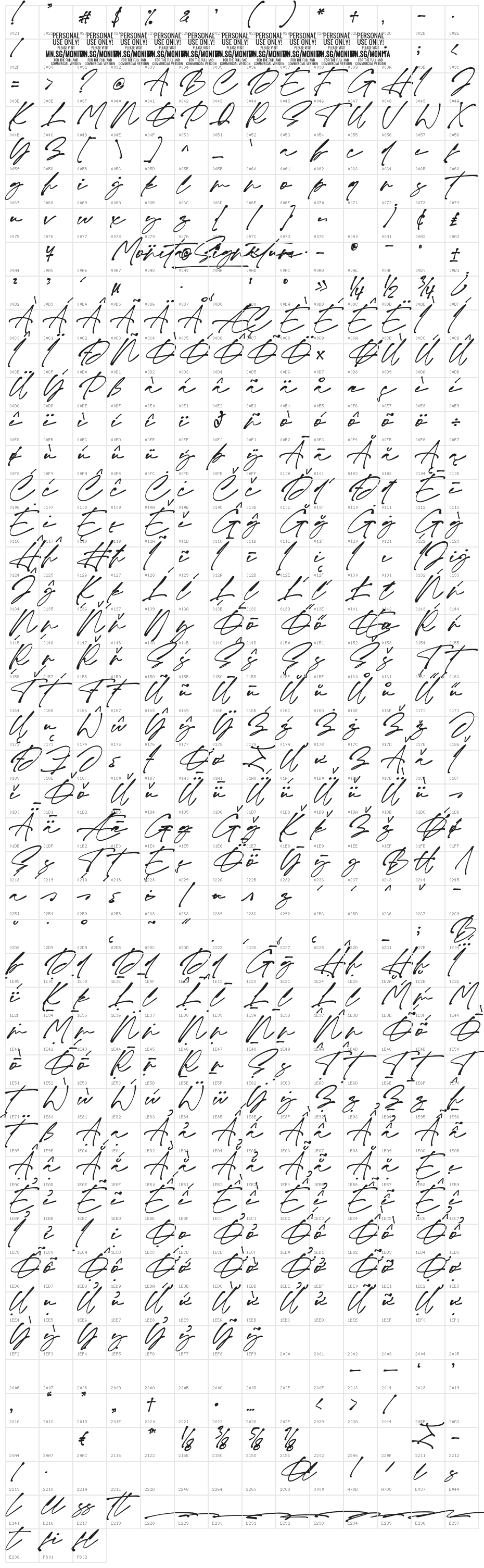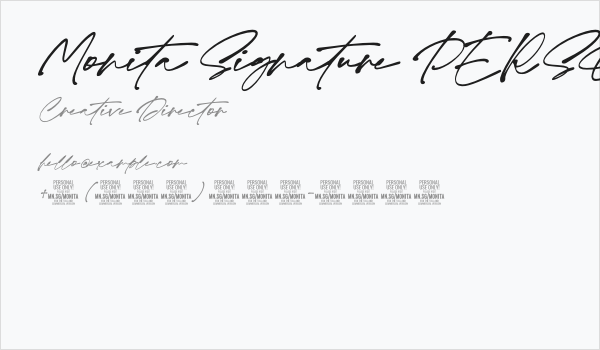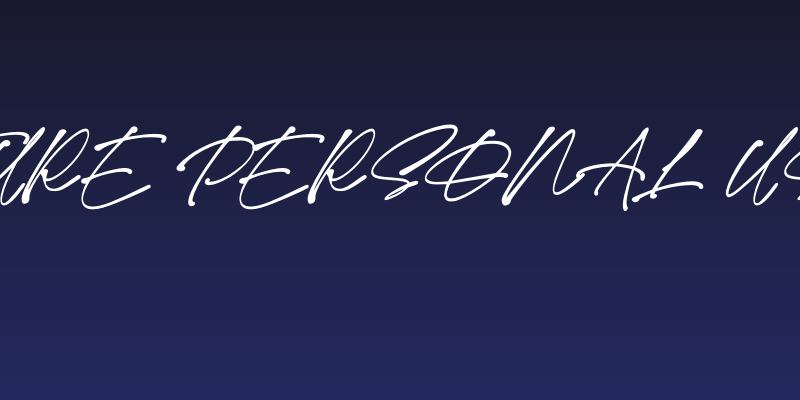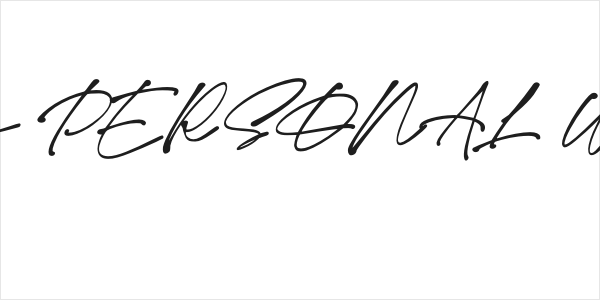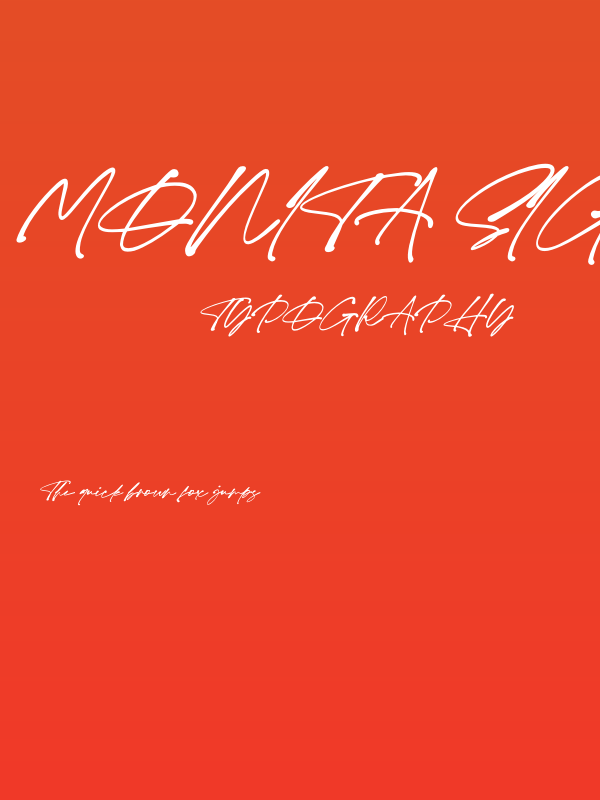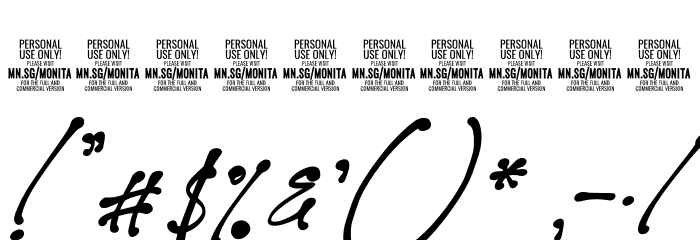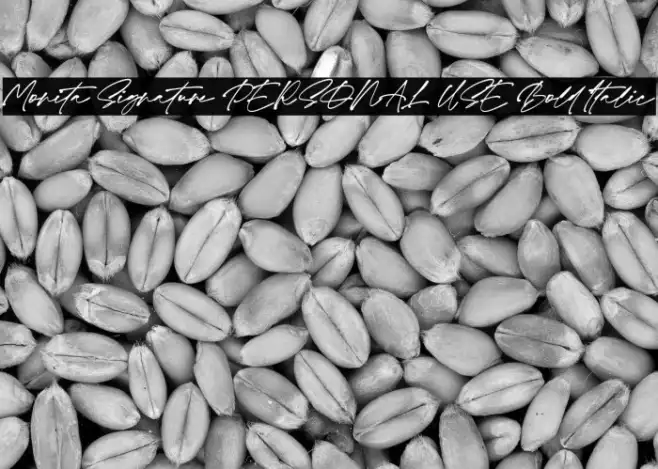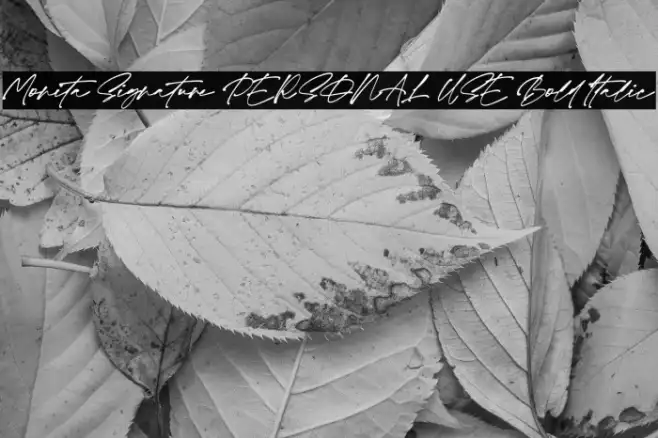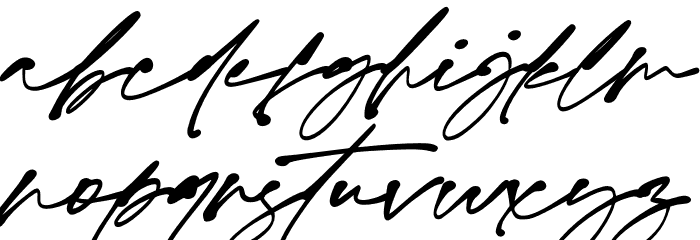
Monita Signature PERSONAL USE Bold Italic Font
Monita Signature PERSONAL USE Bold Italic Description
This font exudes a sophisticated and elegant handwritten style, characterized by its fluid and connected strokes. The letters are crafted with a natural flow, mimicking the appearance of a personal signature. The boldness of the strokes adds a sense of confidence and presence, while the italic slant enhances its dynamic and stylish appeal. The uppercase and lowercase letters maintain a consistent style, with smooth curves and loops that create a harmonious look. The numerals and special characters are designed to complement the overall aesthetic, ensuring versatility across various applications.
| Overall Style | Elegant, Sophisticated |
| Use Case | Logos, Invitations, Personal Signatures |
| Proposed Projects | Ideal for branding projects, personal signatures, invitations, and elegant stationery designs. |